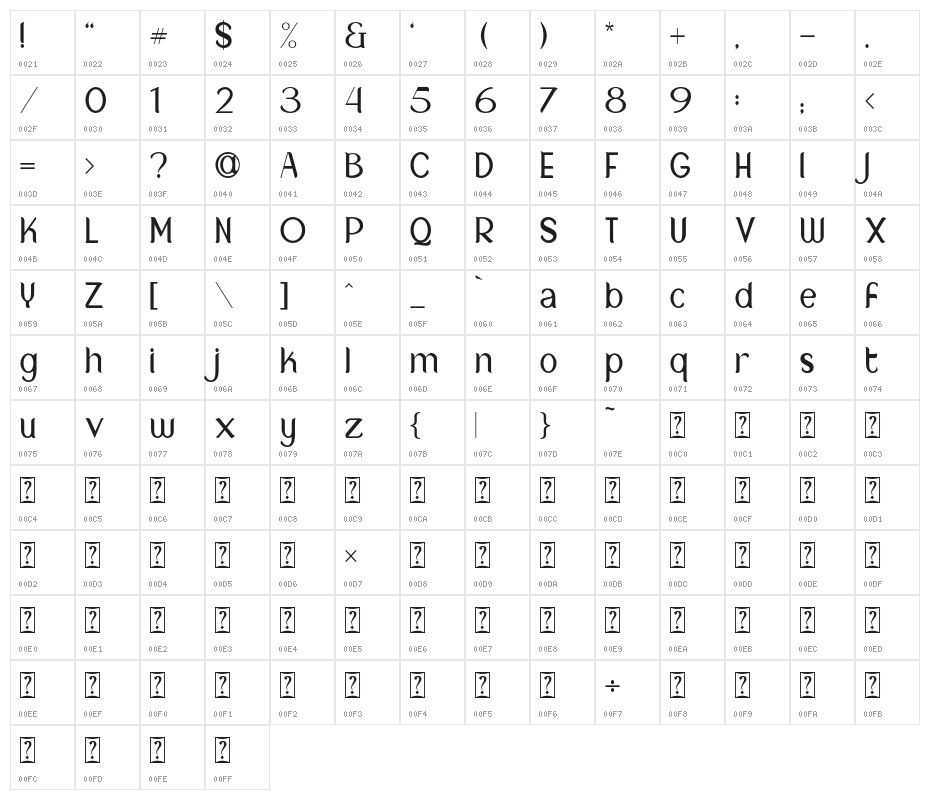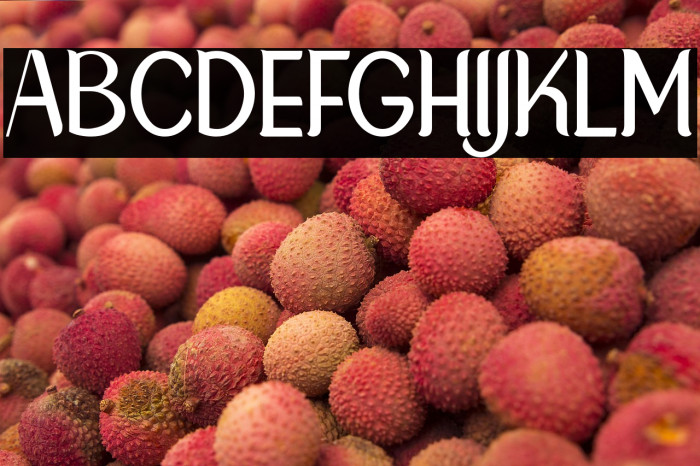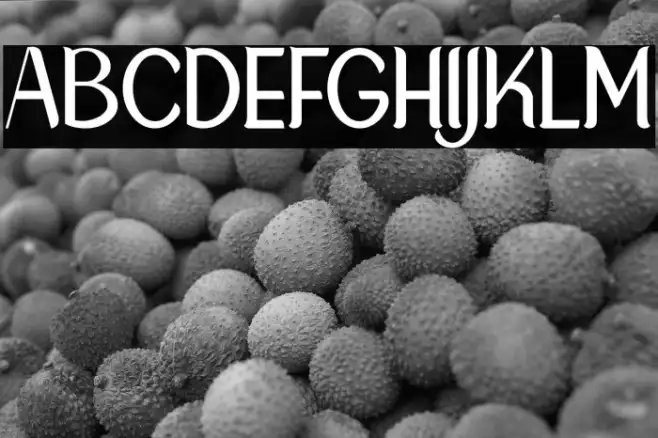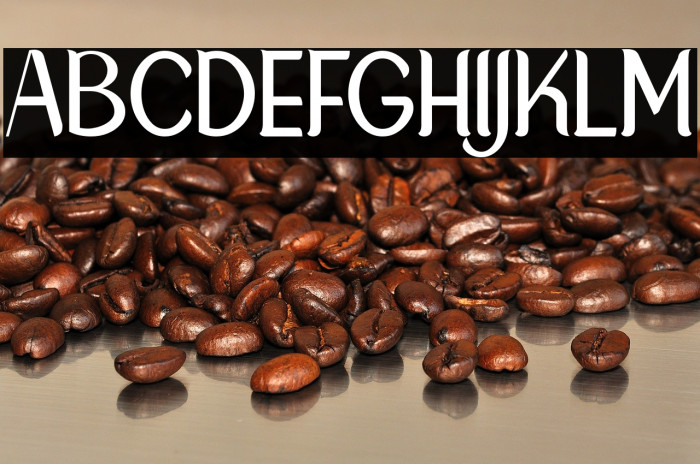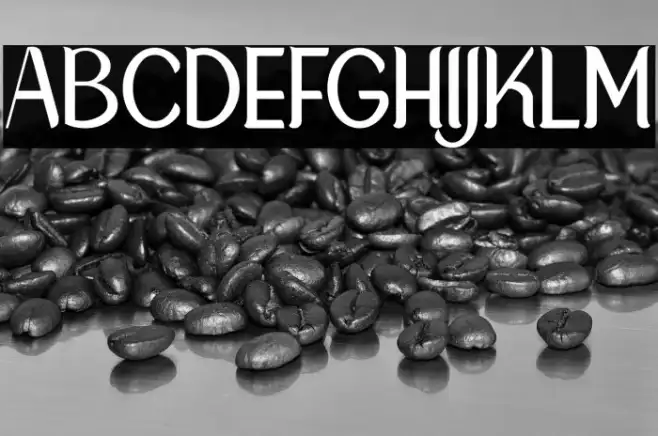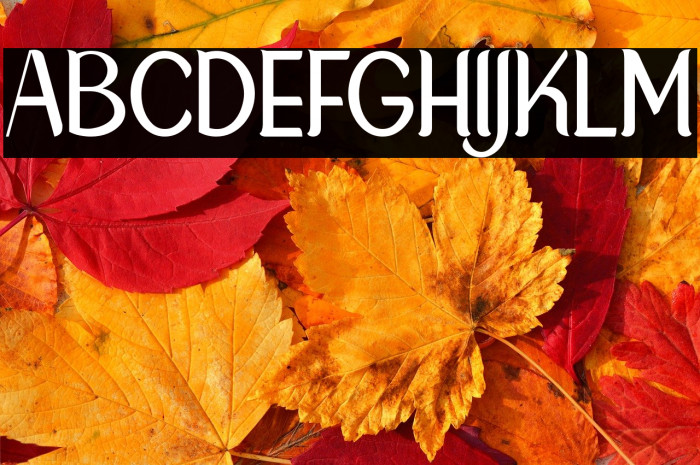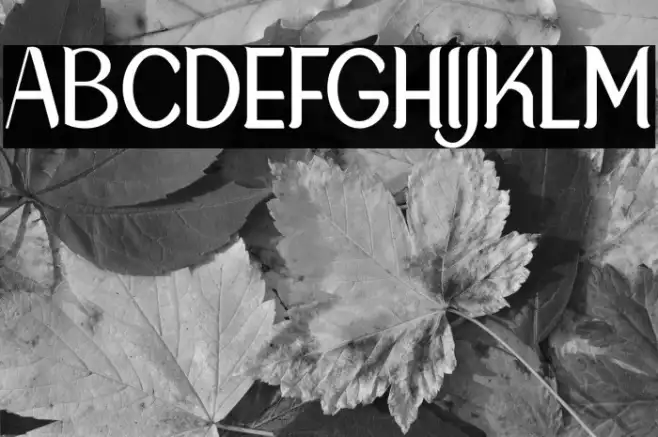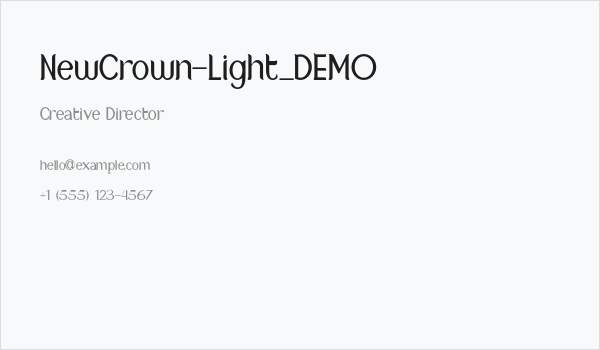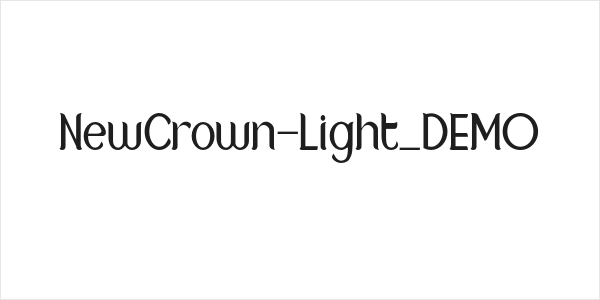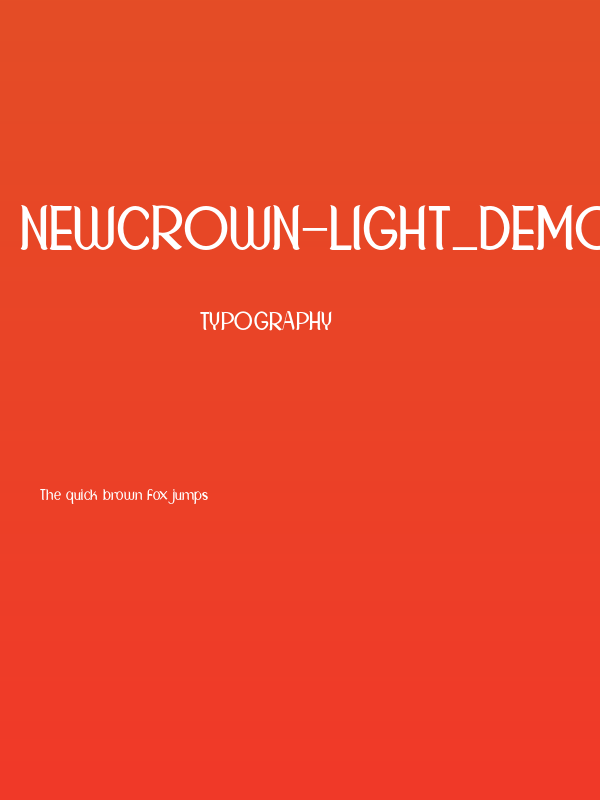
NewCrown-Light_DEMO Font
NewCrown-Light_DEMO Description
This font features a unique blend of modern and vintage styles, characterized by its elegant curves and distinct serifs. The uppercase letters exhibit a strong presence with slightly elongated verticals, while the lowercase letters maintain a smooth, flowing appearance. The numerals are well-balanced, offering a harmonious look that complements the alphabet. Special characters are crafted with precision, adding to the font's versatility. The overall design is both sophisticated and approachable, making it suitable for a variety of applications.
| Proposed Projects | Ideal for branding, editorial design, invitations, and packaging. |